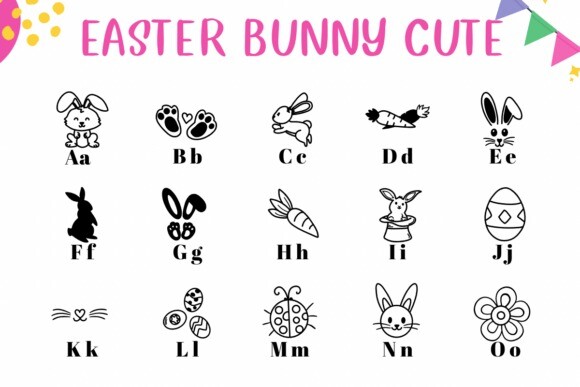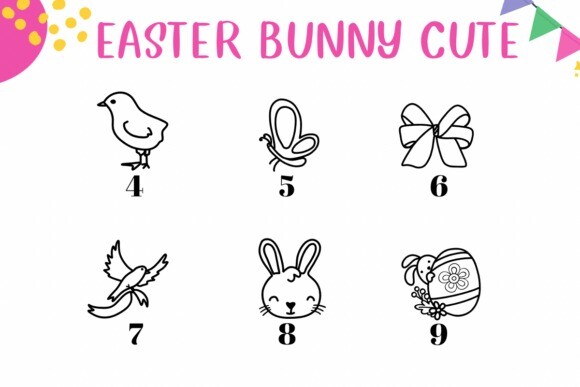
Easter Bunny Cute Font
Easter Bunny Cute Font is a dingbats font with theme with a sketch style. This font can enhance your creative projects such as wedding invitations, DIY, crafts, decorations, logos, and many other creative ideas.